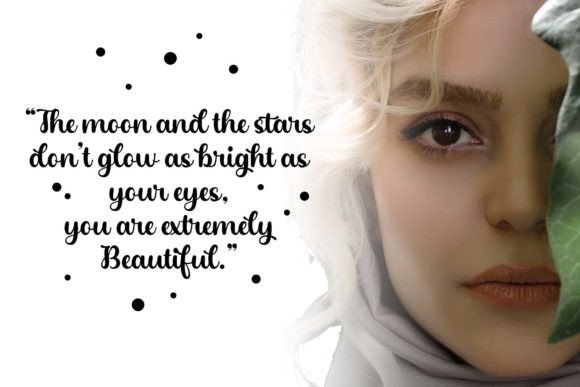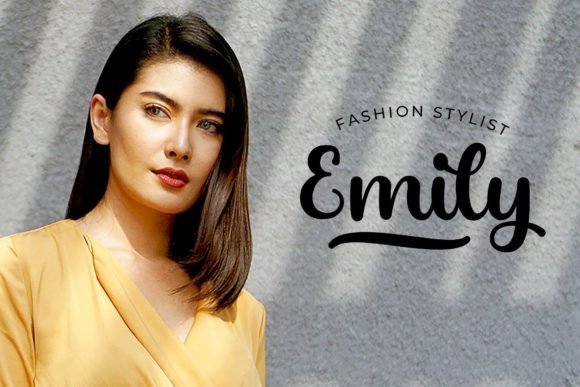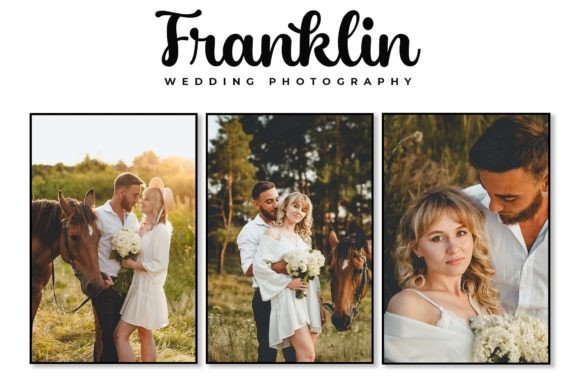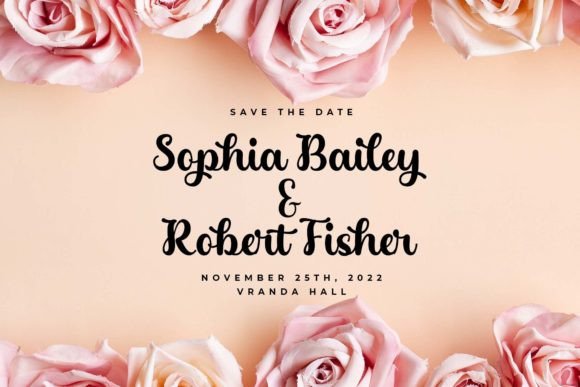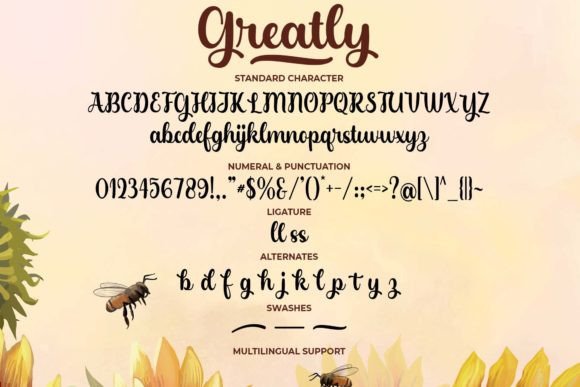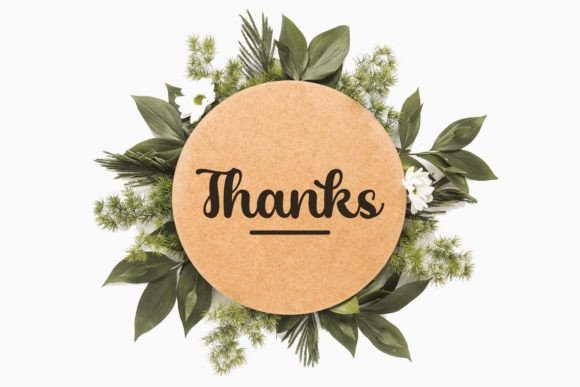
The Greatly Font: A Timeless Calligraphic Script for Creative Projects
I’ll never forget the time I was working on a wedding invitation project, and my client asked me to create a custom design that exuded elegance and sophistication. The catch? I had to find the perfect font that would make the invitation look like it was written by hand. After hours of searching, I stumbled upon the Greatly font, and it was love at first sight! 💕
Greatly is a beautiful calligraphic script font that has become a staple in my design toolkit. Its subtle, clean, and feminine design makes it perfect for a wide range of creative projects, from formal invitations to romantic novels. In this article, I’ll share my honest review of the Greatly font, provide a practical guide on how to use it, and explore similar fonts that you might love.
Honest Review: What I Love and Some Quirks
- ✅ Beautiful alternate characters that add a touch of elegance to any design
- ✅ Subtle, clean, and feminine design that’s perfect for formal and creative projects
- ✅ Easy to read, even in small sizes
- ✅ Versatile and suitable for a wide range of applications, from invitations to novels
Some Quirks to Consider 🤔
- ⚠️ Some users may find the font a bit too delicate for certain design applications
- ⚠️ Limited availability of certain OpenType features in certain software
The Greatly font was designed with the intention of creating a timeless, elegant script font that would evoke the feeling of handwritten calligraphy. The designer’s inspiration came from traditional calligraphy techniques, combined with a modern twist to make the font more versatile and easy to read.
Q: What is the Greatly font best suited for?
A: The Greatly font is perfect for formal and creative projects, such as invitations, labels, menus, logos, fashion branding, make-up packaging, stationery, letterpress, romantic novels, magazines, books, greeting/wedding cards, and more.
Q: Is the Greatly font easy to read?
A: Yes, the Greatly font is designed to be easy to read, even in small sizes. Its clean and subtle design makes it perfect for body text and headlines.